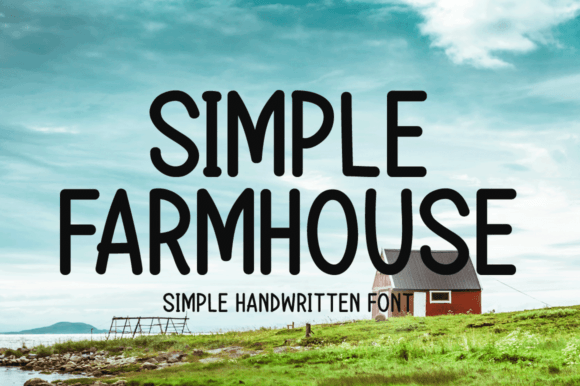
Simple Farmhouse Font: A Practical Guide for Designers and Creators
The Simple Farmhouse font is a versatile and approachable typeface that blends rustic charm with modern usability. Designed for those who appreciate a clean, friendly aesthetic, it offers a balanced look that works well across various design projects. Whether you're creating stationery, branding materials, or digital content, understanding the strengths and limitations of Simple Farmhouse can help you make informed decisions about its use.
What Is Simple Farmhouse?
Simple Farmhouse is a display font that combines the warmth of traditional typography with a contemporary edge. Its design features slightly irregular edges and subtle variations in stroke weight, giving it a handcrafted feel without sacrificing readability. This font is ideal for projects that require a personal touch, such as invitations, logos, and editorial layouts. Its name reflects its intended purpose—offering a simple, farmhouse-inspired style that feels both authentic and modern.
Why Consider Simple Farmhouse?
Designers and creators often turn to Simple Farmhouse for its ability to convey a sense of authenticity and approachability. The font’s character makes it particularly well-suited for brands or projects targeting audiences that value simplicity, tradition, or a connection to nature. It can add visual interest to headings, titles, and other prominent text elements while maintaining legibility at larger sizes.
Additionally, Simple Farmhouse appeals to those looking for a unique alternative to more standard sans-serif or serif fonts. Its distinct personality allows it to stand out in a crowded design landscape without appearing overly complicated or hard to read.
Benefits of Using Simple Farmhouse
One of the primary advantages of Simple Farmhouse is its versatility. It can be used in a wide range of applications, from print materials like business cards and packaging to digital formats such as websites and social media graphics. Its friendly appearance makes it an excellent choice for projects that aim to create a welcoming or nostalgic atmosphere.
The font also offers a good balance between trendiness and timelessness. While it has a modern appeal, its design avoids excessive ornamentation, making it less likely to become outdated quickly. This makes it a practical option for long-term branding or recurring design projects.
Tradeoffs and Considerations
Despite its many benefits, Simple Farmhouse may not be the best choice for every project. Its slightly irregular strokes and uneven lines can reduce legibility when used in small sizes or in body text. For this reason, it is generally recommended for display purposes rather than for extended reading.
Situations Where Simple Farmhouse Excels
Simple Farmhouse shines in projects that benefit from a warm, personalized touch. It is particularly effective for branding in industries such as food, agriculture, home décor, and artisanal crafts. Its visual style aligns well with themes of sustainability, simplicity, and craftsmanship, making it a strong fit for eco-friendly or locally sourced businesses.
It also works well for creative projects that require a unique identity, such as wedding invitations, greeting cards, and custom illustrations. In these contexts, the font’s character can enhance the overall aesthetic and emotional tone of the design.
When Alternatives Might Be Better
For projects that prioritize clarity and uniformity, simpler fonts may be more appropriate. If the goal is to maintain a professional or highly readable appearance, especially in large blocks of text, alternatives like Helvetica, Arial, or Roboto might be better choices. These fonts offer greater consistency and are often preferred in corporate or technical settings.
Additionally, if a more stylized or decorative look is needed, other display fonts with more pronounced details or ornamental elements may be more suitable. Fonts like Great Vibes or Pacifico, for example, offer a more distinctive flair but may lack the balance and adaptability of Simple Farmhouse.
Decision-Making Insights
When deciding whether to use Simple Farmhouse, consider the specific goals of your project. Ask yourself: What message do I want to convey? Who is my audience? What level of readability is required? These questions can help determine if the font aligns with your needs.
Testing the font in different contexts is also advisable. Experiment with how it looks in various sizes, backgrounds, and layouts. This can reveal any potential issues with legibility or visual harmony that may not be apparent at first glance.
Conclusion
Simple Farmhouse is a thoughtful and practical font that offers a unique blend of charm and functionality. Its friendly appearance and adaptability make it a valuable tool for designers seeking to add character to their work. However, its suitability depends on the specific requirements of each project. By carefully evaluating its strengths and limitations, you can determine whether it is the right choice for your design goals.